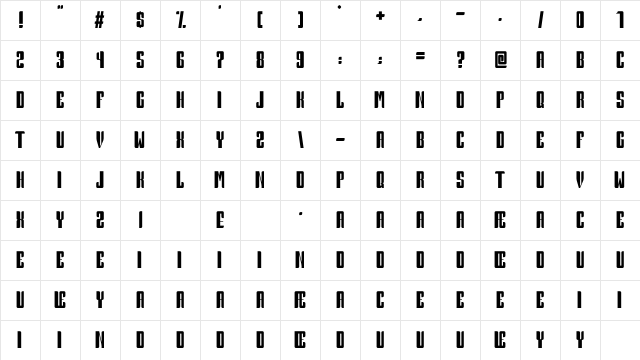
Prohibition Sans Regular
| Designer | Nickel Beryllium |
Design Context for Prohibition Sans Typeface
Prohibition Sans is a composed and adaptable typeface that performs quietly and consistently across a wide range of design contexts.